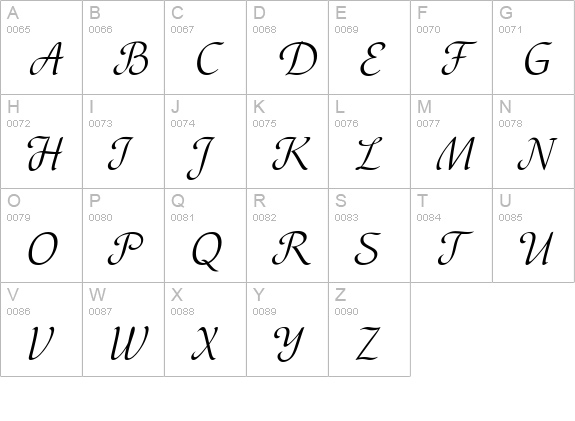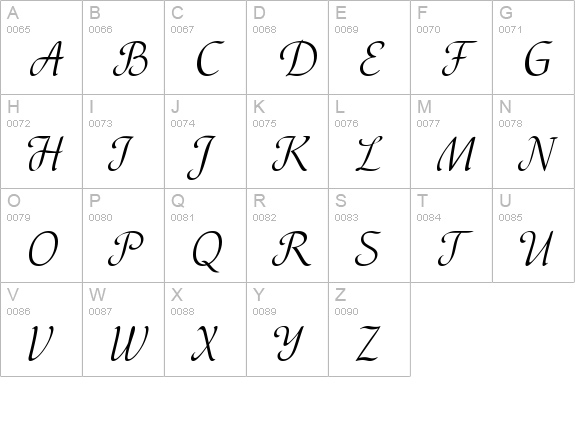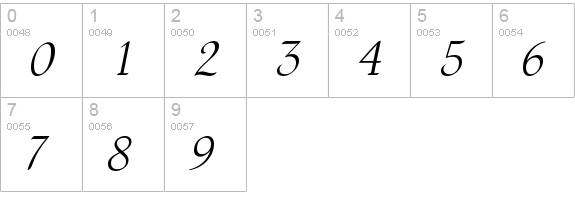
Vesna Font Details
Introducing Vesna, a stunningly beautiful font that exudes elegance and sophistication. With its graceful curves and intricate details, Vesna captures the essence of timeless beauty. This free font is perfect for adding a touch of class to any design project. Vesna's versatility knows no bounds, making it suitable for a wide range of applications. Whether you're designing a logo, crafting a wedding invitation, or creating a stylish poster, Vesna will effortlessly elevate your work to new heights. What sets Vesna apart is not just its aesthetic appeal, but also its accessibility. This font is freely available to download at FontsMarket.com, making it accessible to designers of all levels. Now, you can access this incredible font without breaking the bank or compromising on quality. Vesna offers an extensive character set, including uppercase and lowercase letters, numerals, punctuation marks, and special characters. Its clean lines and legibility ensure that your message is conveyed with clarity and precision. Plus, with multiple weights and styles to choose from, you have the freedom to customize and experiment with different looks. Whether you're a professional graphic designer or a creative enthusiast, Vesna is the perfect addition to your font collection. Its timeless beauty and versatility make it a must-have for any design project. Don't miss out on this opportunity to download Vesna for free at FontsMarket.com and discover the endless possibilities it offers.